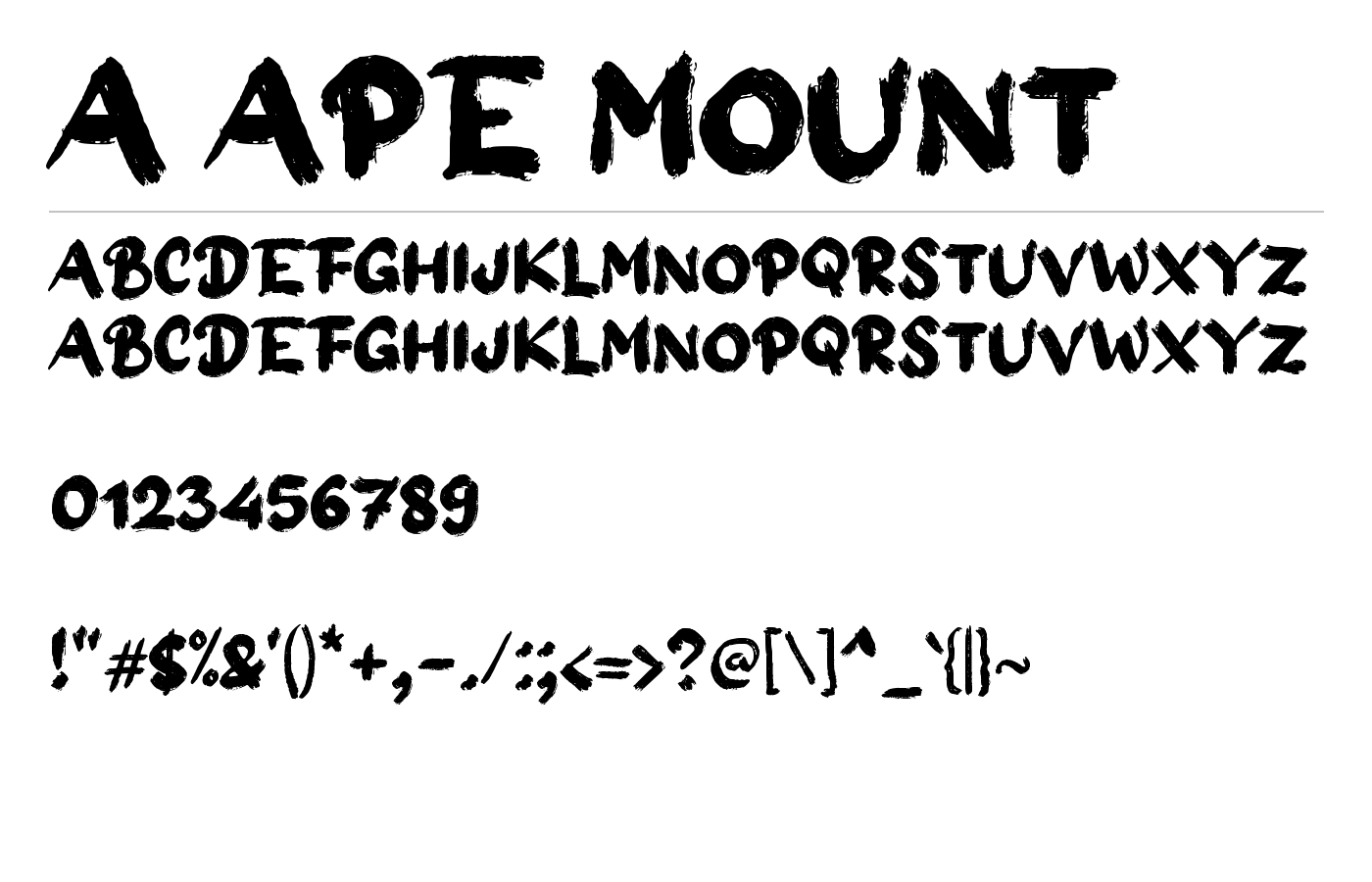
A Ape Mount is a bold, hand-drawn sans serif font with a rough, textured brushstroke style that gives it an energetic, organic feel. Its uppercase characters feature irregular shapes and strong contrast in stroke weight, making it perfect for eye-catching headlines, posters, and creative projects that want to convey a playful, adventurous spirit. This font works well for brands and designs that seek a lively, handcrafted look with a touch of rugged charm.
a Ape Mount Font